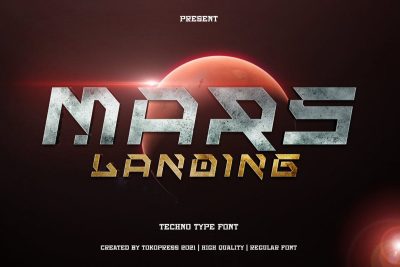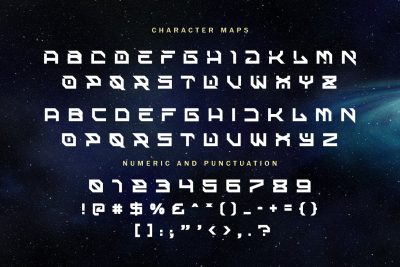
Futuristic Font mars landing
Mars Landing
Futuristic Font Mars Landing captivates with its bold and striking design, ideal for projects inspired by space exploration and technological innovation. Its angular, sharp-edged characters evoke the rugged yet futuristic terrain of extraterrestrial landscapes. This makes it an exceptional choice for designers seeking to convey adventure and innovation. The font is perfect for branding, posters, game titles, and sci-fi visuals that demand a bold presence.
Mars Landing combines a sleek, modern aesthetic with a touch of retro-futurism. This creates a balance that feels both familiar and forward-thinking. Its versatile structure ensures readability while adding a distinct flair to any project. Whether used for digital displays or print, Mars Landing elevates your designs to a new level of creativity. The font integrates seamlessly into projects that emphasize technology, exploration, and cutting-edge concepts.
Why Choose Futuristic Font Mars Landing for Your Designs?
Futuristic Font Mars Landing is more than just a typeface. It is a tool to create impactful visuals that resonate with futuristic themes. The font’s geometric precision and unique character design make it suitable for industries such as gaming, tech startups, and space-themed events. Designers incorporate Mars Landing into logos, headlines, and branding campaigns to evoke a sense of interstellar ambition.
Furthermore, the font’s compatibility with modern design tools makes it an excellent choice for various applications. These include digital interfaces and merchandise. Its bold lines and subtle metallic texture make it ideal for projects requiring a high-tech or space-inspired touch. With Mars Landing, designers can combine form and functionality. This ensures their creations leave a lasting impression.
Lastly, Mars Landing is optimized for multilingual projects, broadening its usability across diverse markets. Its dynamic yet professional style allows designers to communicate effectively with global audiences. Whether you are designing for a tech launch or a sci-fi movie poster, Mars Landing highlights your innovative vision.
Mars is our future planet. The exploration is just begun.